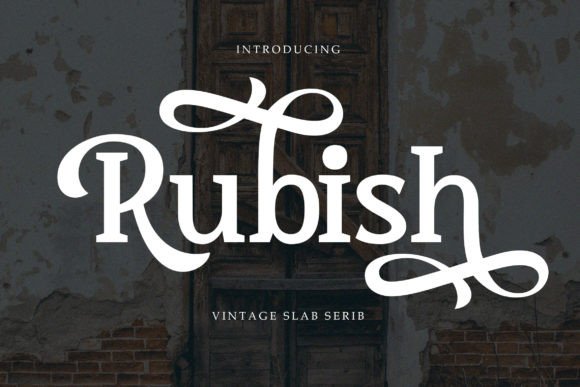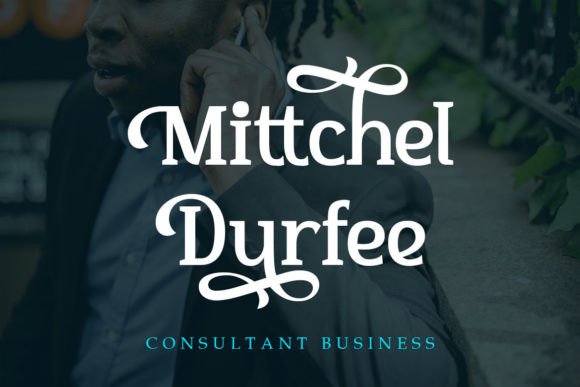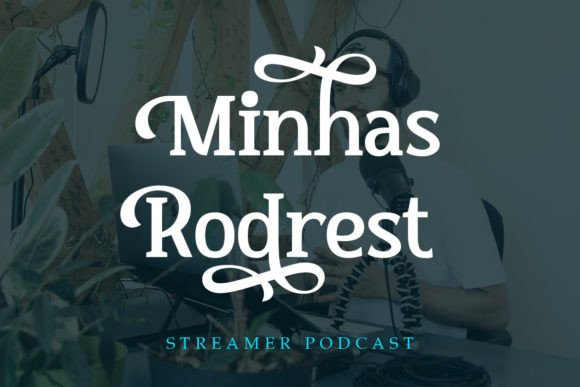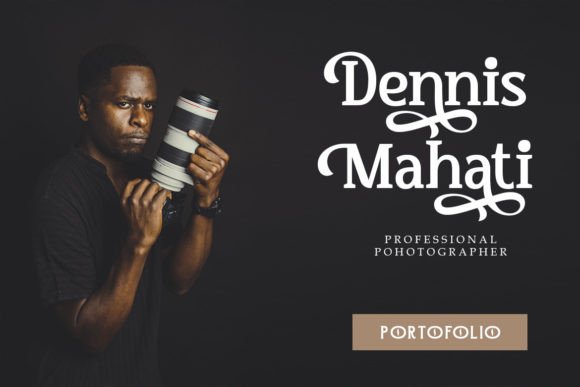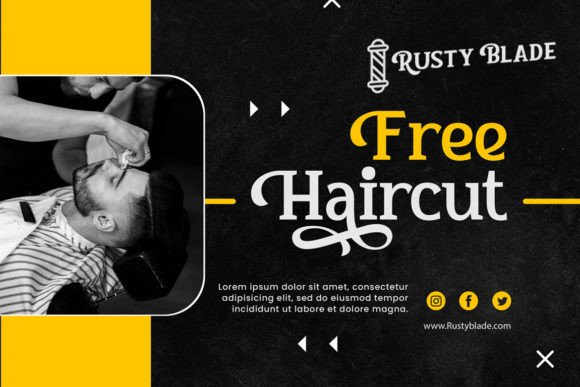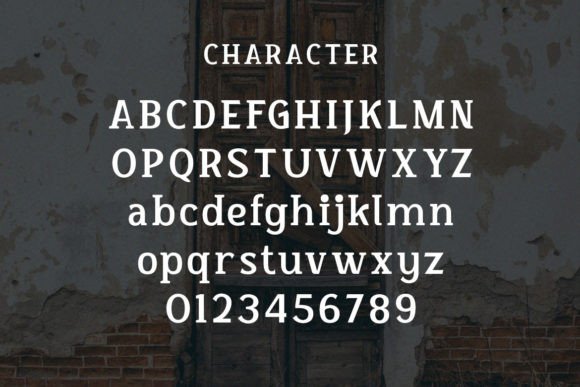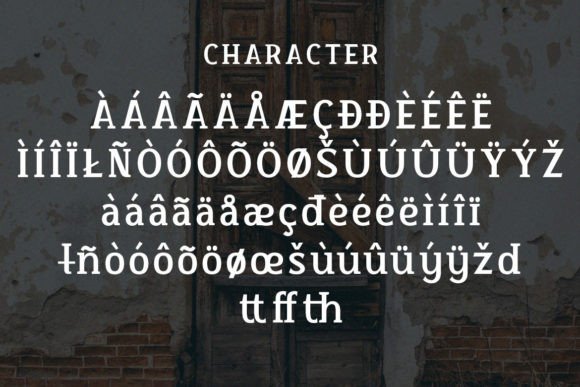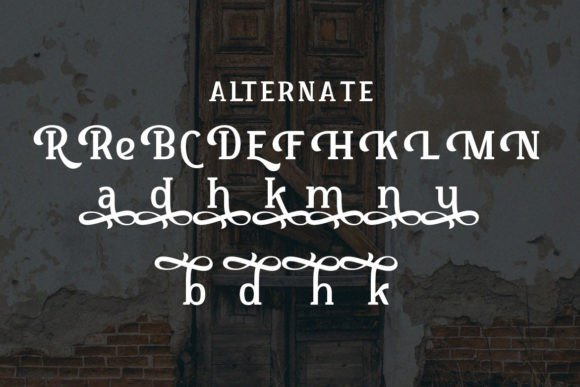
Rubish
Rubish: An Elegant and Rounded Slab Serif Typeface
Rubish is an elegant and rounded slab serif typeface. It adapts wonderfully in contexts such as designing labels for perfumes, cosmetics, magazine covers, posters, manifests, flyers, social posts, and fashion. Use it in your creations so you can notice how fastly it becomes one of your favorite fonts.
Key Features of Rubish
• Elegant Design: Offers a sophisticated and refined look suitable for various applications.
• Rounded Slab Serif: Features distinctive rounded serifs that add character and softness.
• Versatile Application: Ideal for both print and digital media projects.
• Adaptable Style: Works well across a range of design contexts, from luxury to fashion.
Ideal Uses for Rubish
Rubish’s unique characteristics make it particularly well-suited for:
When incorporating Rubish into your designs, consider these tips:
• Use for headlines or short blocks of text to showcase its elegant style.
• Experiment with different sizes to highlight the font’s rounded features.
• Utilize its adaptable nature to create designs that span various industries and styles.
Rubish is an excellent choice for designers looking to add an elegant and rounded slab serif font to their typographic toolkit. Its ability to adapt to various design contexts makes it stand out in the world of typography. Whether you’re working on luxury product labels, creating magazine layouts, or developing content for social media, Rubish offers the perfect blend of sophistication and versatility.
Furthermore, Rubish’s unique design allows it to shine in various contexts. From perfume labels to fashion branding, this font can elevate your projects with its distinctive style. Its elegant yet readable appearance works particularly well in designs that aim to convey a sense of refinement and modernity.
In conclusion, Rubish is a font that truly captures the essence of elegance with a modern twist. Its adaptability across different media showcases its versatility in various creative needs. For those looking to add a touch of sophisticated charm to their work, Rubish can enhance themed creations with its distinctive style. It’s the perfect choice for designers seeking to make a refined, stylish impact across a wide range of creative projects.